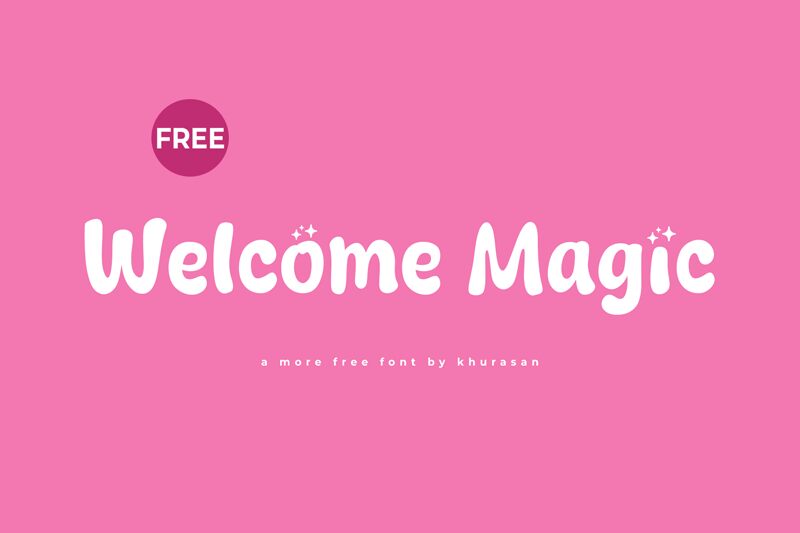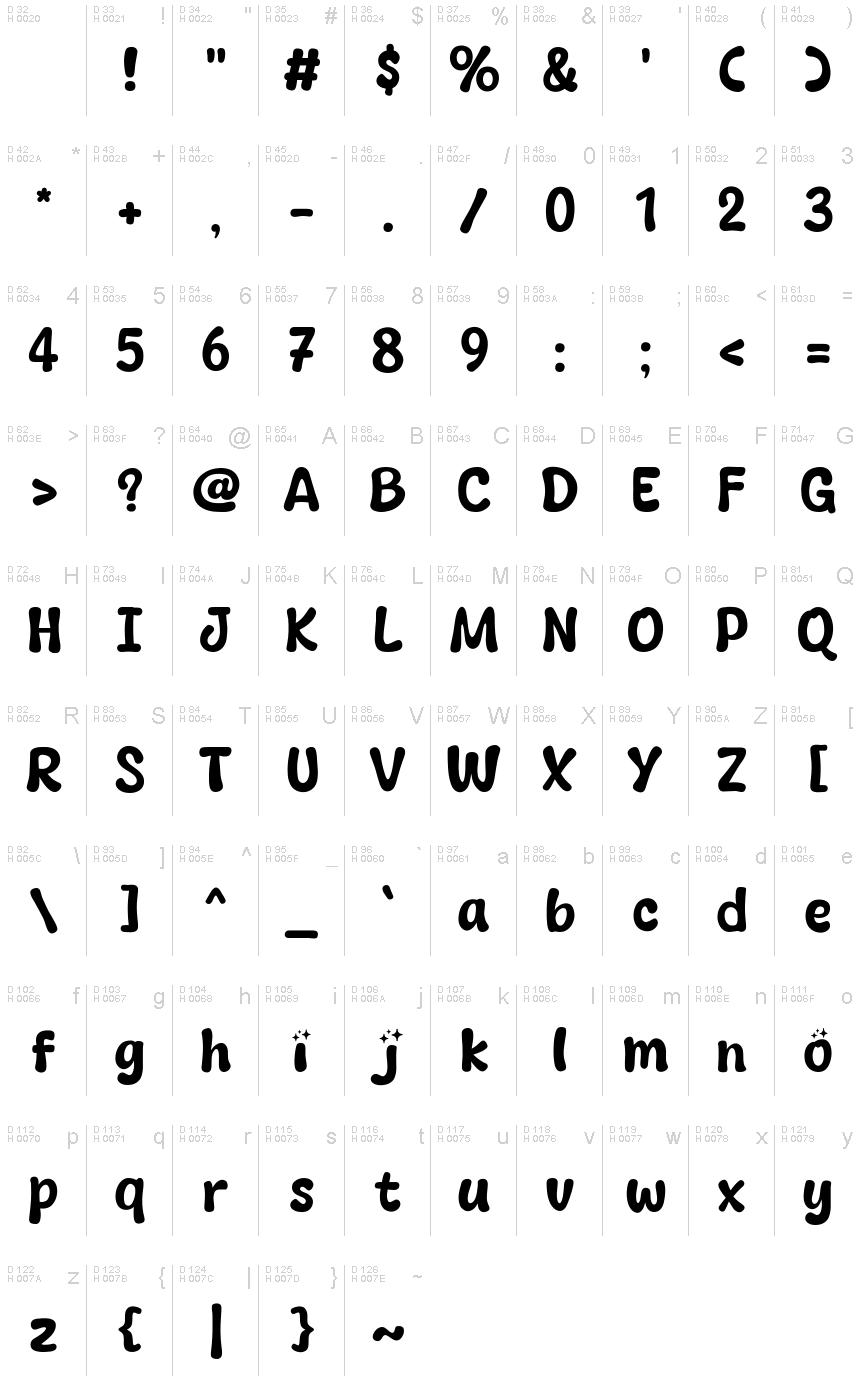
Welcome Magic
Welcome Magic, a captivating display font designed by Khurasan, exudes a playful and whimsical charm. With its bold, cartoon-inspired strokes and delightful star accents, this font radiates a sense of joy and wonder. The unique letter forms and playful curves create a visually striking aesthetic, making it an ideal choice for engaging designs that aim to capture the essence of magic and fantasy.
This versatile font lends itself beautifully to a wide range of applications, from children's book covers and game interfaces to event branding and product packaging. Its bold, attention-grabbing presence makes it an excellent selection for headlines, titles, and decorative elements, while its legibility ensures readability in smaller sizes. Welcome Magic's captivating style seamlessly blends the worlds of imagination and practicality, making it a versatile choice for designers seeking to infuse their creations with a touch of enchantment.